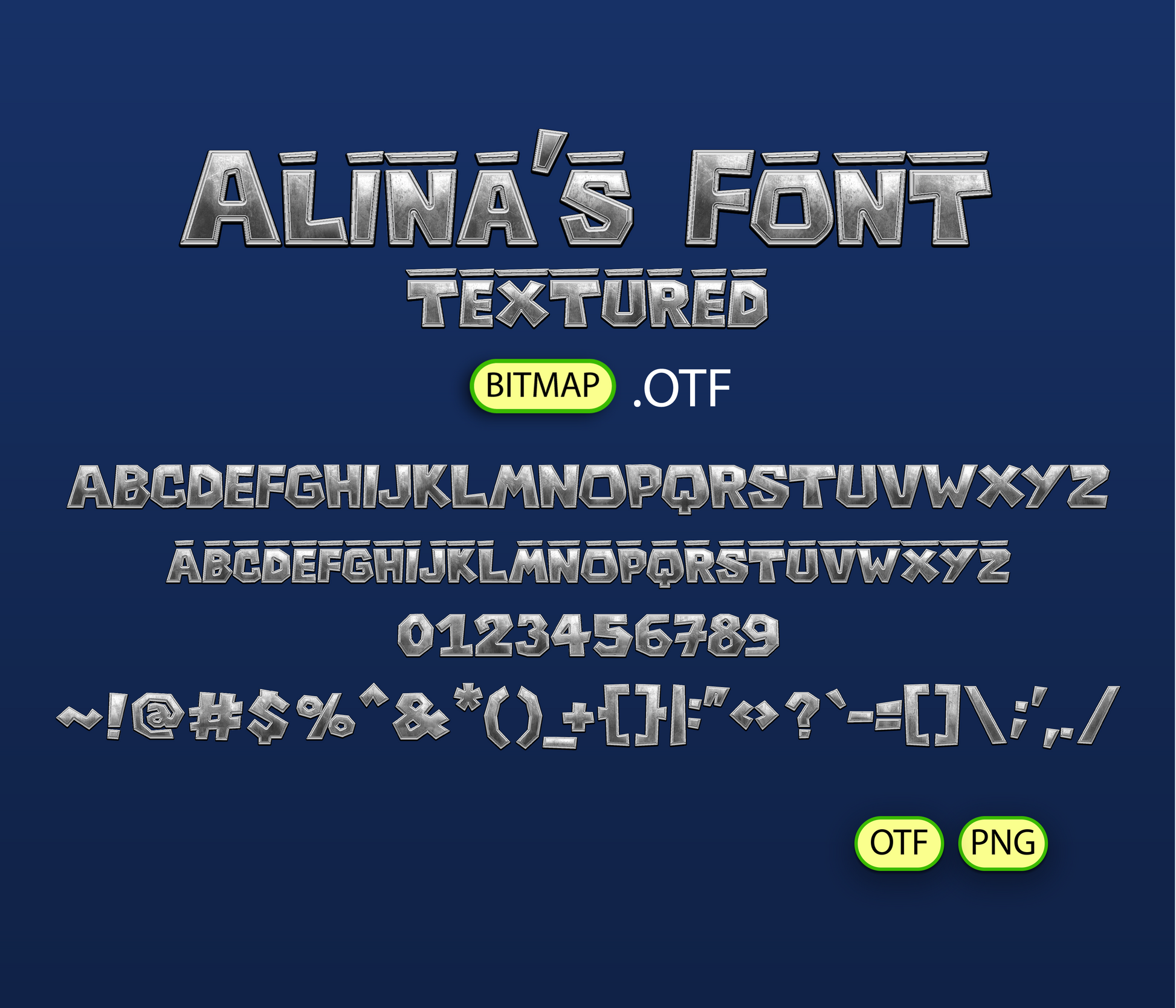
Metaverse Creation Game Font Textured
Step into the expansive world of imagination-powered design with our Metaverse Creation Game Font Textured, capturing the essence of self-made universes and social interaction hubs. Perfect for interactive media enthusiasts, party planners, content developers, and artistic professionals, this font brings the powerful, lively spirit of player-crafted realm stories to your projects. Create standout invitations, branded merchandise, or online content with the spirited appeal of modular experience narratives.
Bold Typography for Digital Design & Community Projects
Our Metaverse Creation Game Font Textured features prominent, stylized letterforms with blocky surface effects reflecting the world of character personalization and shared space environments.
- Event Promotions: Create standout invitations, signage, and advertising pieces for digital festivities, streamer gatherings, and youth celebrations that capture the spirit of participatory design entertainment
- Merchandise Design: Perfect for apparel, canvas prints, adhesive stickers, and collectibles that showcase the powerful aesthetic of modular realm themes
- Digital Media: Enhance web pages, video platforms, and social channels with lively title treatments and visuals that express the excitement of limitless exploration
- Creative Content: Add distinctive flair to fan renderings, persona designs, and expressive projects inspired by crowd-sourced universe chronicles
- Personal Projects: Bring dynamic vitality to photo albums, self-made crafts, and household embellishments inspired by the world of infinite customization figures
Our font pays tribute to the world of participatory design stories and interactive media culture, empowering your projects with its powerful and lively spirit. Whether crafting supporter materials, designing youth-focused products, or adding a dynamic touch to personal projects, this font communicates the spirited essence of crowd-generated entertainment. Ready to inject creative realm energy into your creations? This font is your key to standout, impactful design.